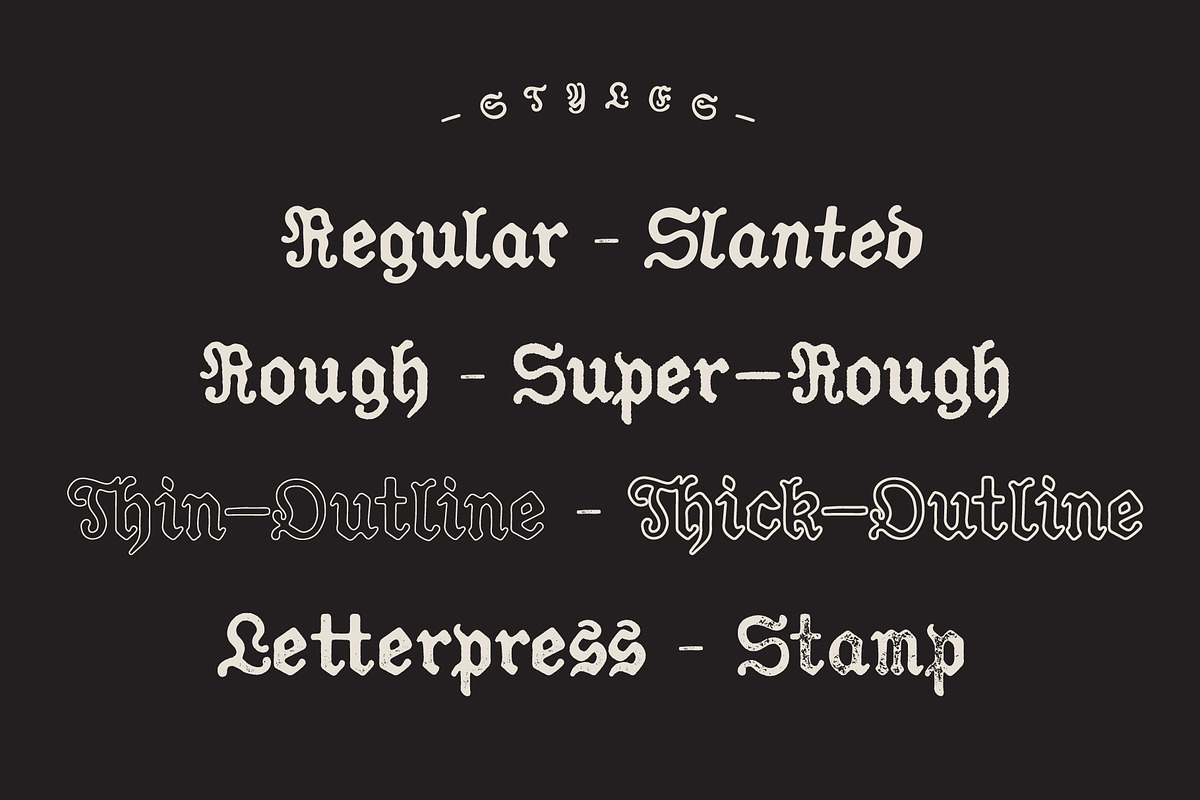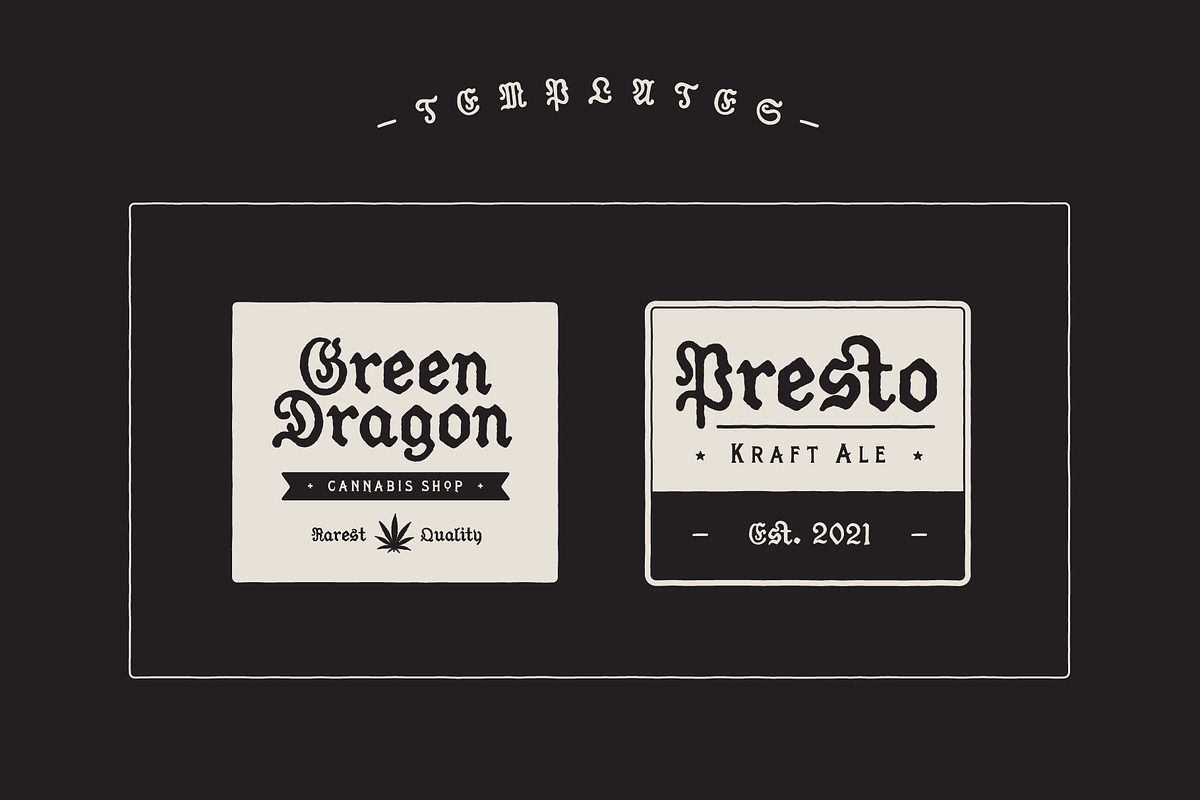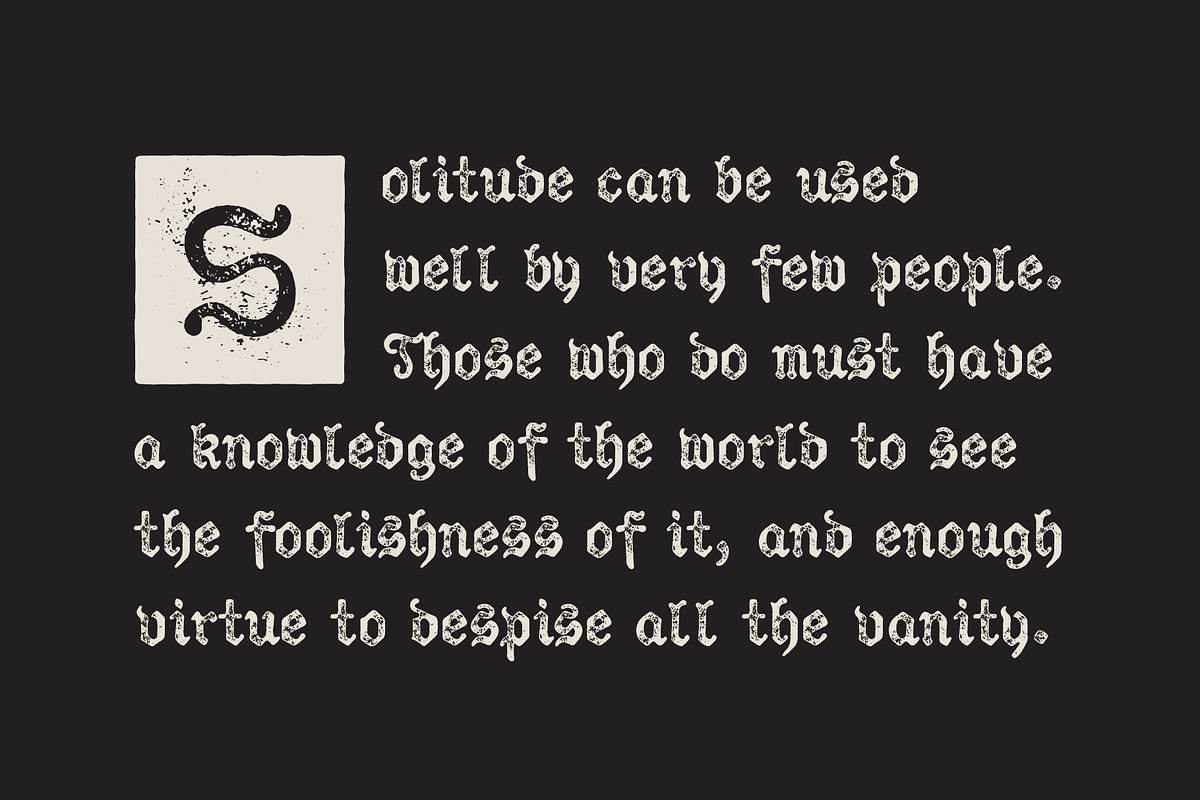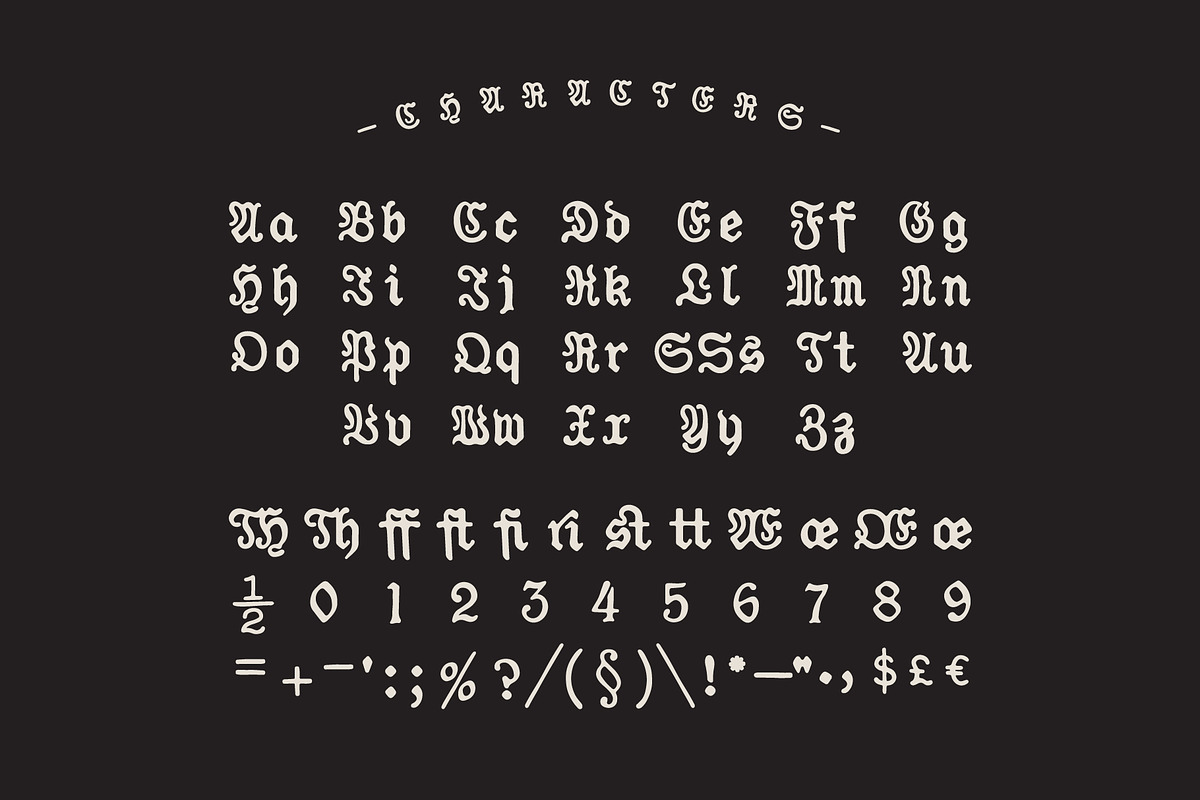
Vanity - Fraktur Blackletter
Vanity is a classic style Fraktur Blackletter that is carefully hand drawn and adapted for better english readability. Vanity comes in 8 carefully crafted styles with a selection of ligatures as well. Give your work that undeniable handmade quality with this cool and unique Blackletter family.
- BONUS PRODUCT Campaign - a complementary serif font in 4 styles that includes a variety of graphic assets.